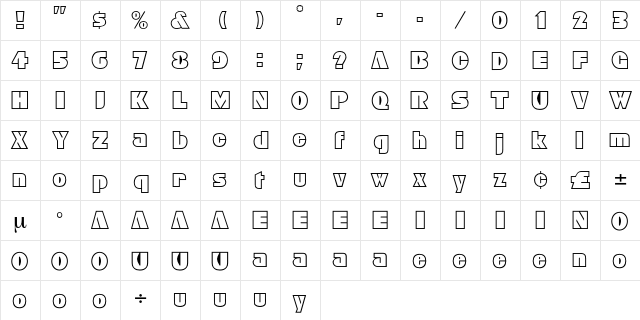
Domino Regular
Design Context for Domino Typeface
Domino offers clean, dependable letterforms without strong stylistic allegiance, making it a practical choice for designers who need flexibility.